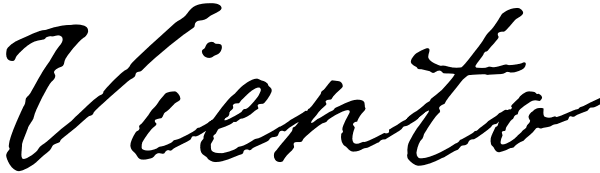
Viento
Viento is the evolution, devolution and revolution of the classic Brisa font. Drawn in a rough way for quick times in a fast culture, this font is a top-of-the-range option for casual text, invites, recipes, menus and of course, packaging your...